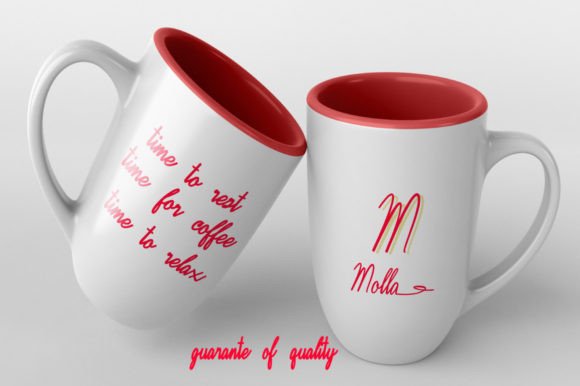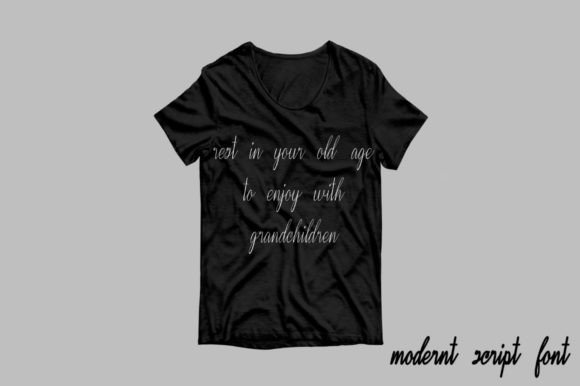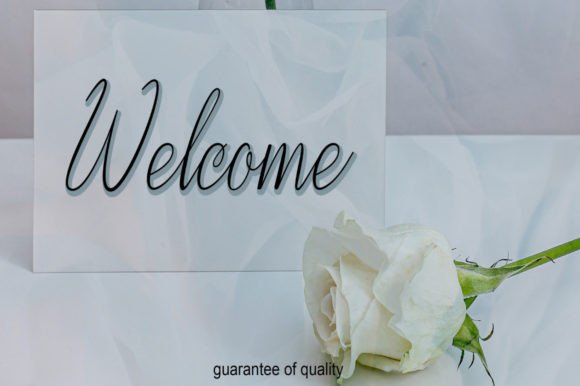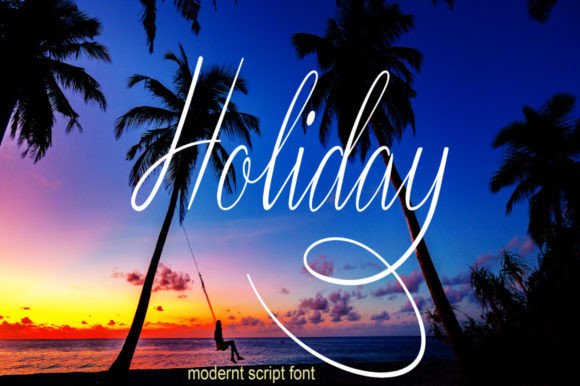
The Perfect Font for Your Masterpiece: Dynasty Font
Have you ever sat in front of your computer, staring at a blank screen, waiting for the perfect idea to strike? It’s that moment when creativity hits, and the world of possibilities opens up. You envision a stunning logo, a beautiful poster, or an eye-catching social media graphic – and the right font is the key to bringing it all together.
Enter Dynasty Font, a stylish and modern script font that’s about to become your new go-to. With its thin letters and elegant feel, Dynasty Font is perfect for adding a touch of sophistication to any design project. Whether you’re a seasoned designer or just starting out, this font is a valuable addition to your toolkit, guaranteed to elevate your work to the next level.
Dynasty Font Key Features
- Unique Characteristics: Dynasty Font features a unique blend of traditional and modern design elements, with intricate details and subtle flair that sets it apart from other fonts.
Review of Dynasty Font
As a designer, I was excited to dive into the Dynasty Font, a new addition to the world of typography. Overall, I found it to be a solid choice for projects that require a touch of sophistication and elegance.
- ✨ Elegant and refined look: The Dynasty Font’s slender lines and subtle flair give it an air of sophistication, making it perfect for high-end branding and luxury projects.
- ✨ Versatile: This font can be used for a variety of purposes, from body text to headings, and even as a standalone title font.
- ✨ Good legibility: The Dynasty Font’s design ensures that text remains clear and easy to read, even at smaller font sizes.
- ⚠️ Limited expressiveness: The Dynasty Font’s elegant look may not be the best fit for projects that require a bold or playful tone.
- ⚠️ May not work well in small sizes: While the font is generally legible, it may become too thin and difficult to read at very small font sizes.
Overall, the Dynasty Font is a solid choice for designers who need a sophisticated and elegant font for their projects. However, it may not be the best fit for every project, and designers should carefully consider its limitations before making a decision.
Getting the Most Out of Dynasty Font
To get the most out of Dynasty Font, use it in bold and italic styles to add emphasis and create visual interest. You can also combine it with other fonts to create a unique and eye-catching design. Experiment with different font sizes and colors to find the perfect balance for your design.
Dynasty Font is ideal for use in luxury branding, high-end marketing materials, and elegant invitations. Its classic and sophisticated look makes it perfect for use in wedding invitations, luxury product packaging, and upscale business cards.